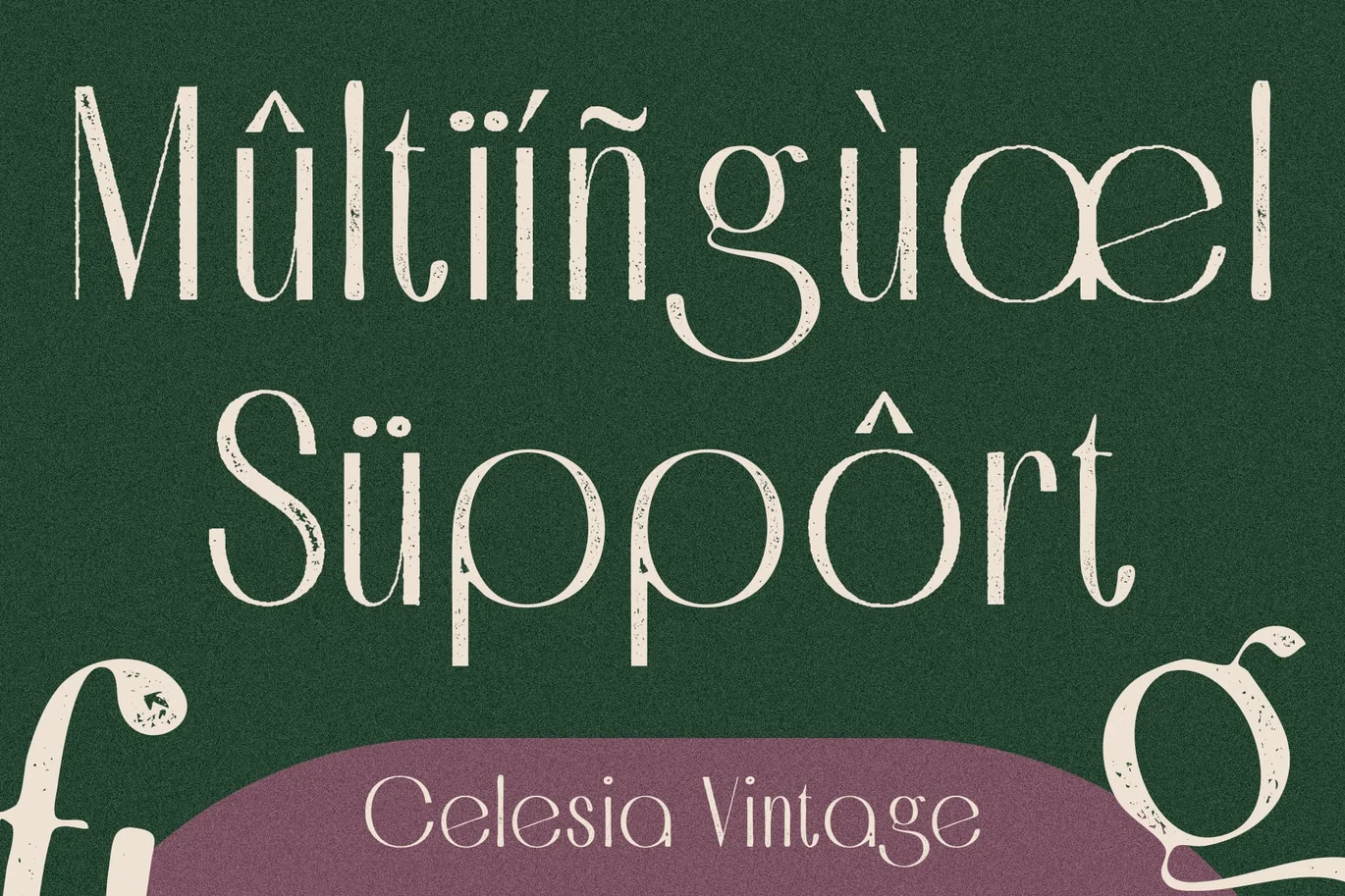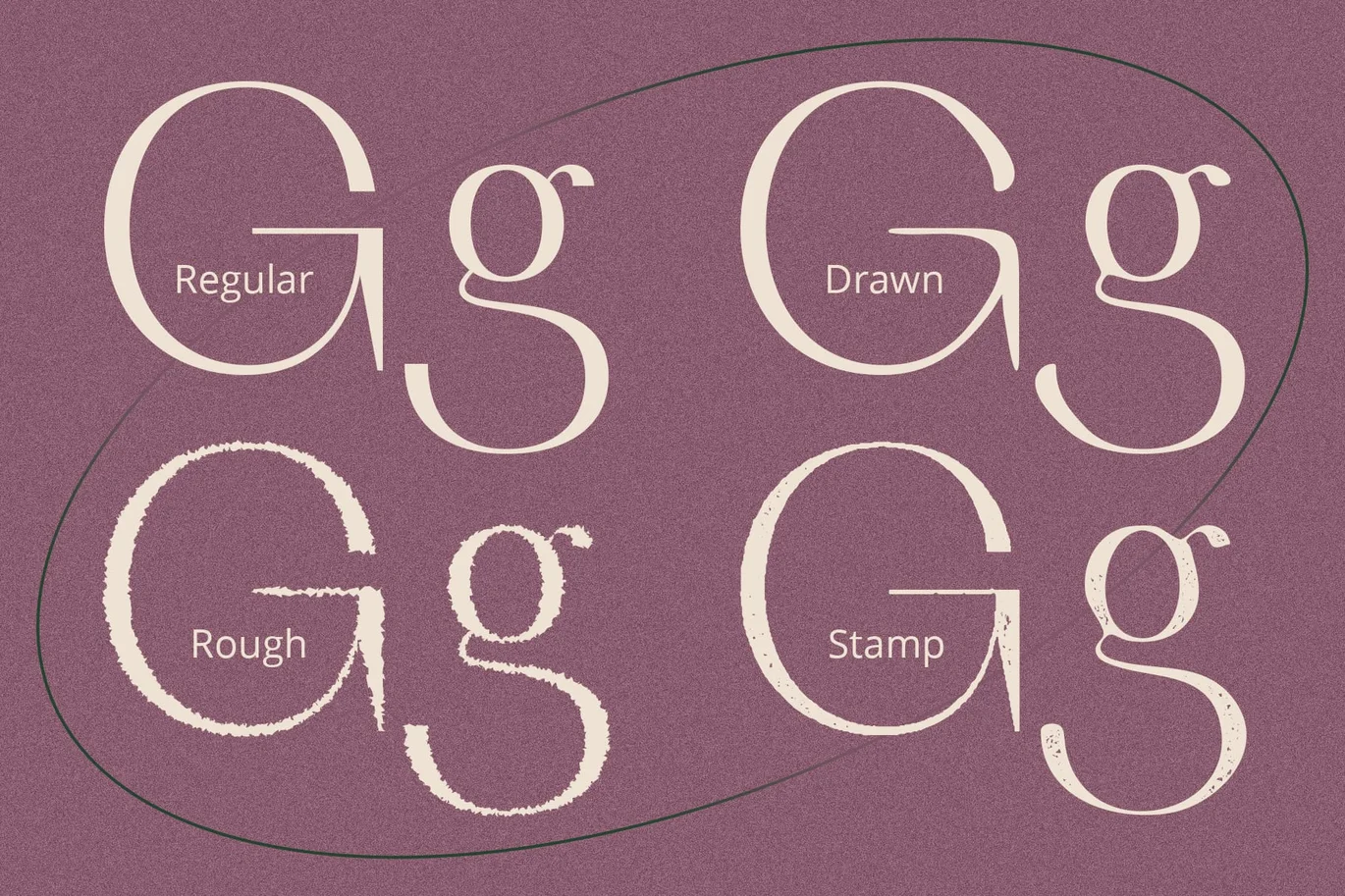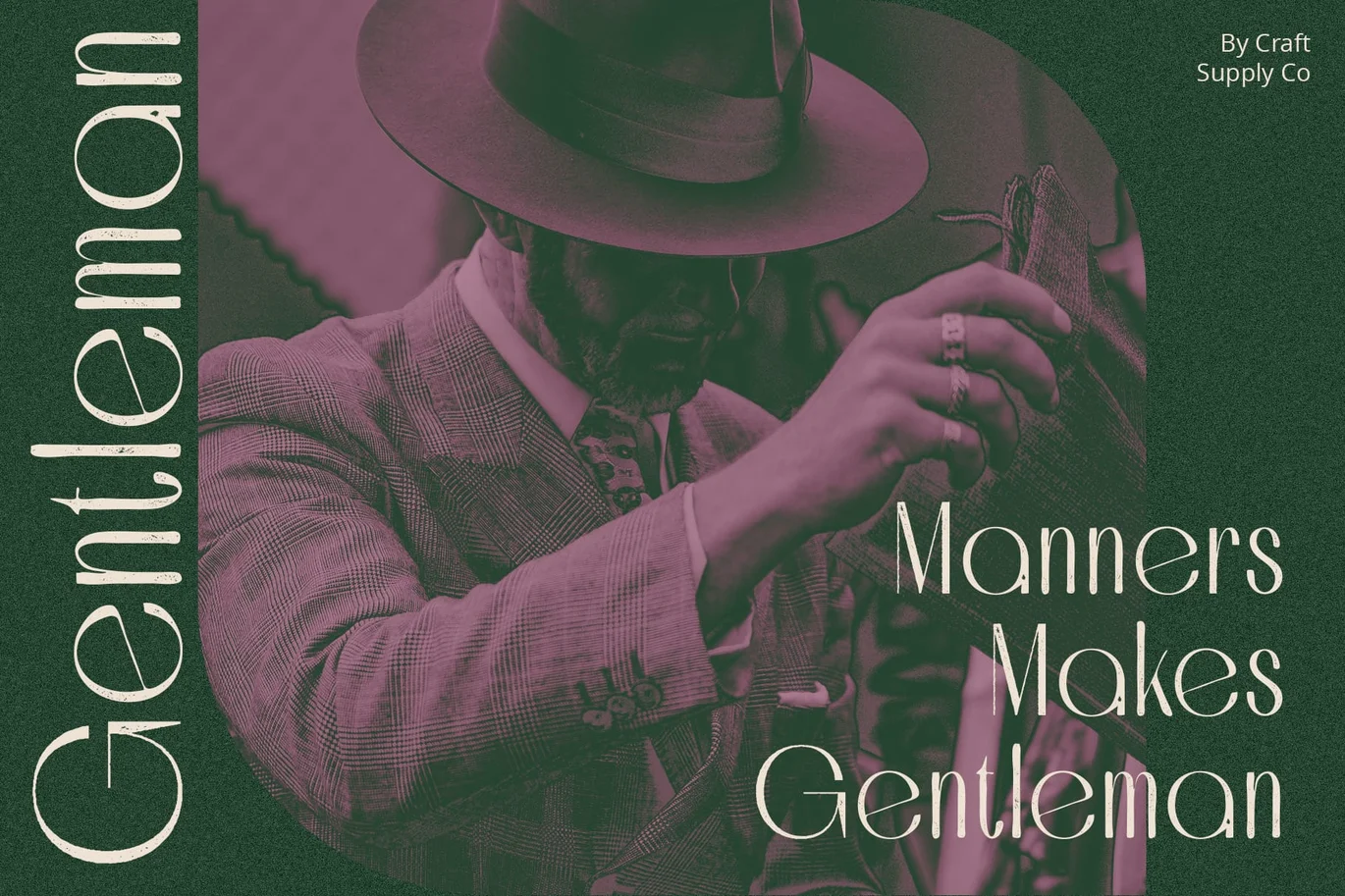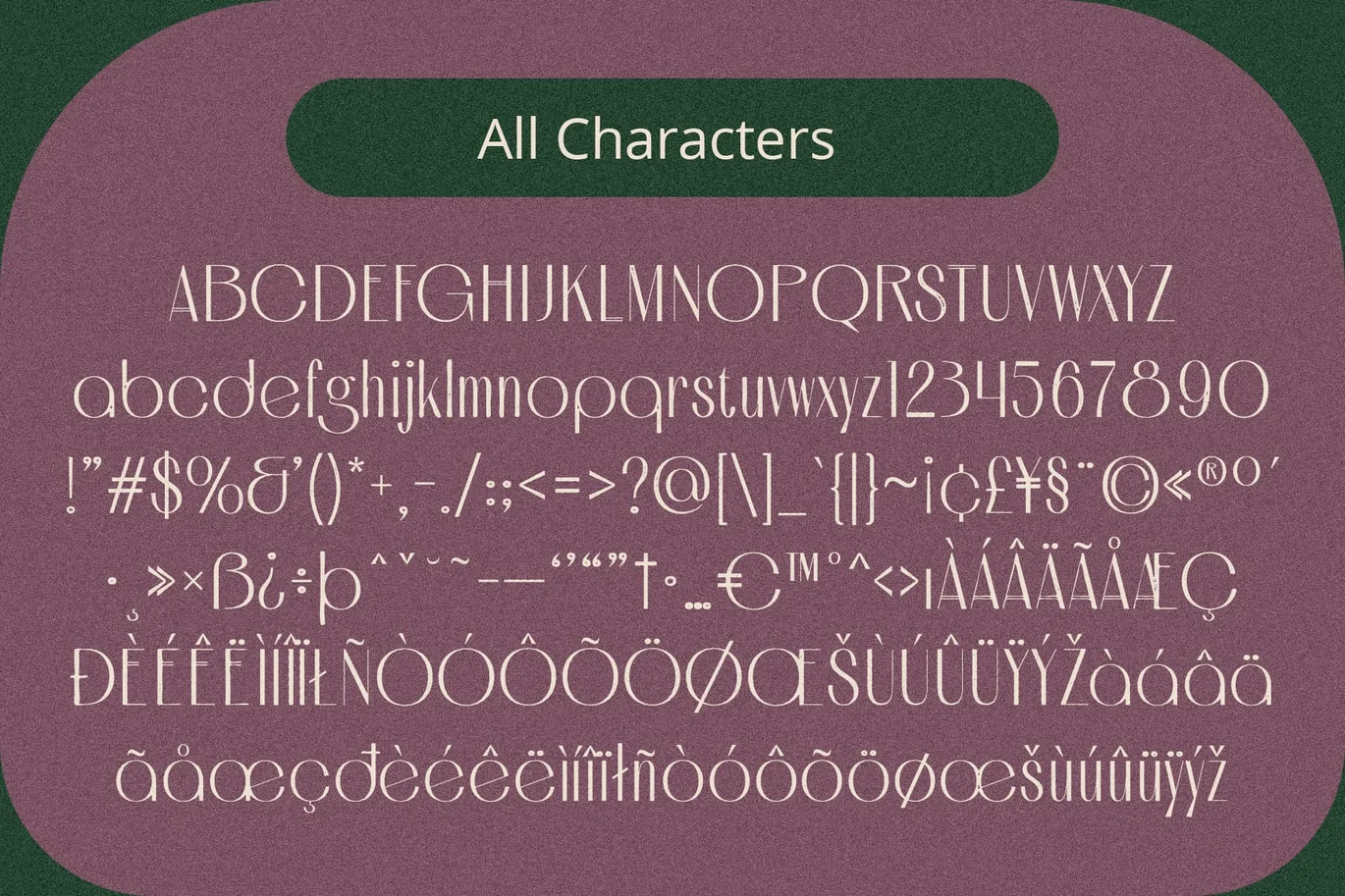
Celesia Vintage Font
Celesia Vintage: A Fusion of Art Deco and Art Nouveau
Art Deco and Art Nouveau Inspiration
Celesia Vintage takes inspiration from the elegant and ornate styles of Art Deco and Art Nouveau. Its sans serif form pays homage to the geometric shapes and decorative motifs characteristic of these iconic design movements.
Rough Stamp Drawn Effect
With a rough stamp drawn effect, This font exudes a vintage aesthetic reminiscent of old signage and letterpress prints. Each letter carries the textured imperfections that add character and authenticity to the font.
Vintage Elegance and Charm
The fusion of Art Deco and Art Nouveau influences, coupled with the rough stamp drawn effect, imbues This font with vintage elegance and charm. It evokes a sense of nostalgia and sophistication, making it perfect for projects that require a touch of vintage flair.
Versatile Application
Despite its vintage-inspired design, This font is versatile and adaptable to various design contexts. Whether used in branding, packaging, posters, or digital media, it adds a unique and timeless appeal to any project.
Timeless Elegance with a Vintage Twist
This font seamlessly blends the sophistication of Art Deco and Art Nouveau with the rustic charm of a rough stamp drawn effect. Its versatile nature and vintage allure make it an excellent choice for designers seeking to evoke nostalgia and elegance in their projects. Step into the past with Celesia Vintage and elevate your designs with its timeless appeal.